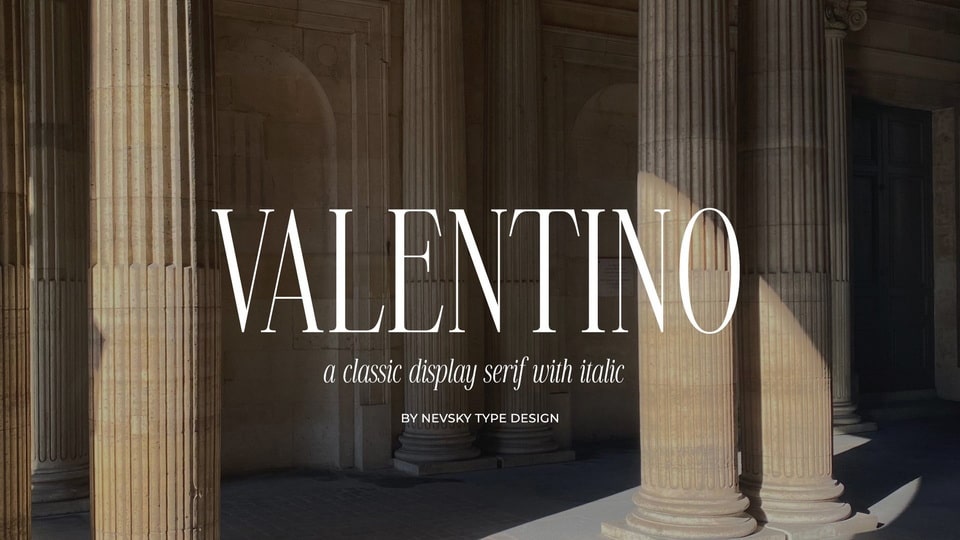
Feb 3, 2025SerifNT Valentino Font NT Valentino is a new modern serif font. This elegant font needs to be in your collection and is perfect for your next luxury design project.NT Valentino supports over 200 Latin-based languages. Font DetailsDesigned by: Artem NevskyWebsiteLicense: Free for personal use Download NT Valentino FontFile size: 113.65 KBCreated: February 16, 2025Updated: February 16, 2025 Download Explore similar fonts Elegance Natural Valentine Font Lameur Font Prodhia Font Veloria Palace Font Taska Font Monterlavia Font # Antiqua# Condensed# Elegant# Modern More fonts by Artem NevskyNT Wagner FontNT Epika TypefaceHarmony FontNT Adventure FontNewYork FontMiracle FontNT Seawave FontNT Vanilla Font